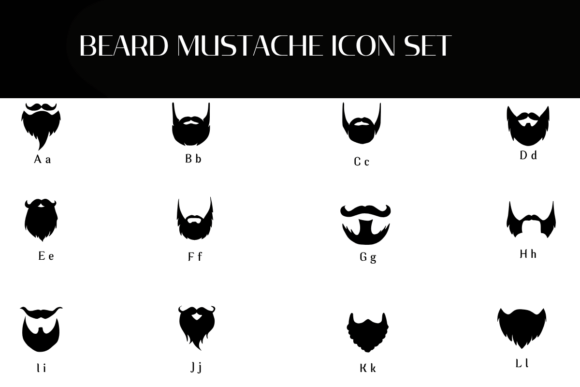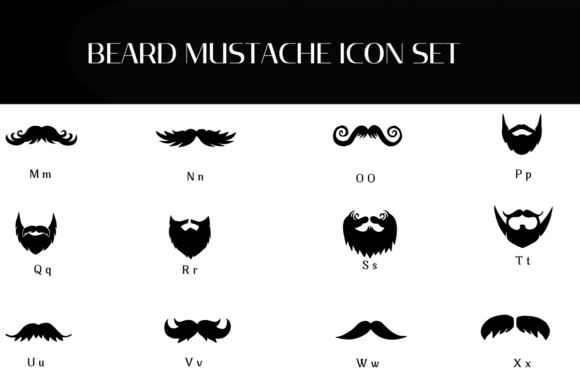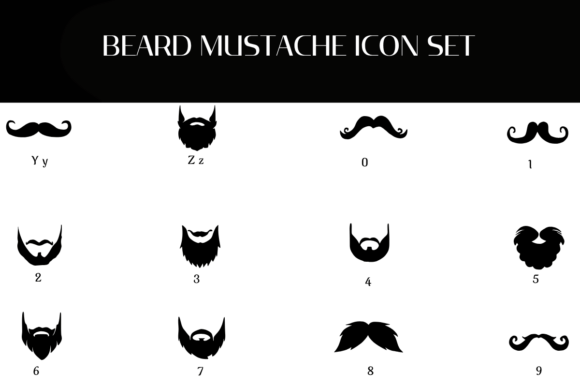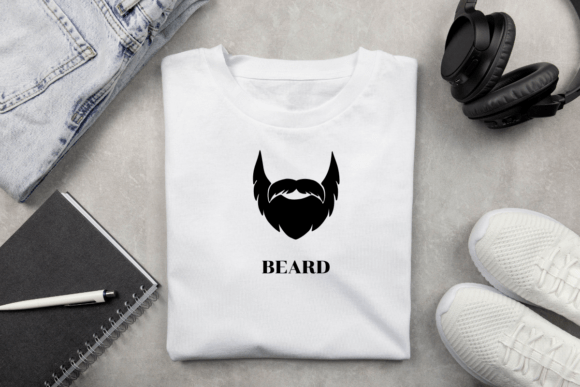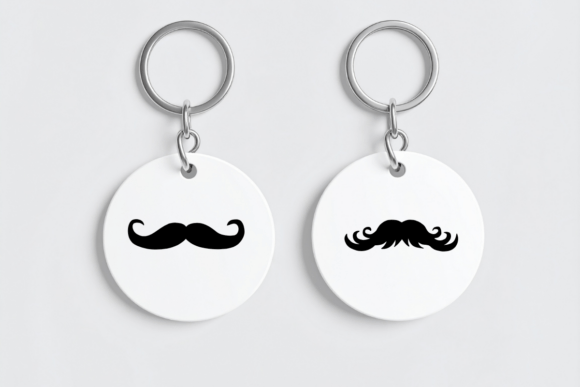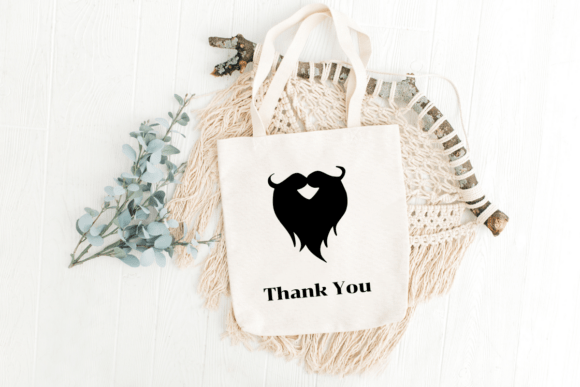
Sharpen Your Style with Beard Mustache Icon Set Font
Are you looking for a unique and stylish way to add a touch of personality to your designs? Look no further than the Beard Mustache Icon Set Font, a dapper dingbat typeface that captures the essence of a “sophisticated-and-rugged” soul. This font features a wide range of grooming-inspired facial hair silhouettes, from sleek handlebars to full, rugged lumberjack beards, all rendered with bold, clean shapes and sharp precision.
As a designer or crafter, you’re always on the lookout for fonts that can help you create visually stunning and effective designs. The Beard Mustache Icon Set Font is the perfect choice for a variety of projects, including independent barbershop branding, men’s lifestyle product labels, Movember campaign graphics, and high-impact social media headers. With its masculine graphic weight and versatile personality, this font is sure to make your designs stand out from the crowd.
A Gallery of Facial Hair Silhouettes
The Beard Mustache Icon Set Font features a vast collection of facial hair silhouettes, each one carefully crafted to showcase a unique and stylish look. From classic goatees to full, rhythmic lumberjack beards, this font has everything you need to add a touch of personality to your designs. Whether you’re looking for a sleek and sophisticated look or a more rugged and masculine vibe, this font has got you covered.
Key Features of the Beard Mustache Icon Set Font
- Bold, clean shapes: Each icon in the Beard Mustache Icon Set Font is rendered with bold, clean shapes that are sure to make a statement.
- Sharp precision: The font features sharp, precise lines that give each icon a crisp and clean look.
- Masculine graphic weight: The font has a strong, masculine graphic weight that’s perfect for designs that need a rugged edge.
- Versatile personality: The Beard Mustache Icon Set Font is versatile enough to be used in a wide range of designs, from barbershop branding to social media headers.
Project Ideas for the Beard Mustache Icon Set Font
The Beard Mustache Icon Set Font is perfect for a wide range of projects, including:
- Barbershop branding: Create a unique and stylish brand identity for your barbershop with this font.
- Men’s lifestyle product labels: Add a touch of personality to your product labels with this font.
- Movember campaign graphics: Create eye-catching graphics for your Movember campaign with this font.
- Social media headers: Add a touch of style to your social media headers with this font.
Tips for Using the Beard Mustache Icon Set Font
Here are a few tips for getting the most out of the Beard Mustache Icon Set Font:
- Experiment with different sizes: Don’t be afraid to experiment with different sizes to find the perfect fit for your design.
- Combine with other fonts: Combine the Beard Mustache Icon Set Font with other fonts to create a unique and stylish look.
- Use in conjunction with images: Use the font in conjunction with images to create a visually stunning design.
The Beard Mustache Icon Set Font is a unique and stylish dingbat typeface that’s perfect for designers and crafters looking to add a touch of personality to their designs. With its bold, clean shapes and sharp precision, this font is sure to make a statement. Whether you’re looking to create a brand identity for your barbershop or add a touch of style to your social media headers, this font is the perfect choice.